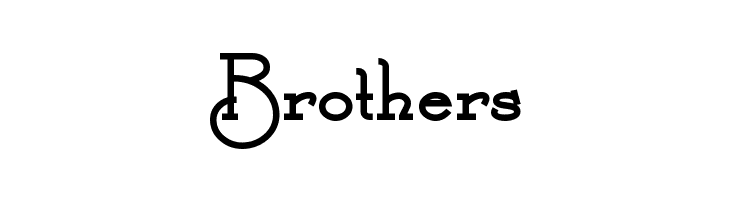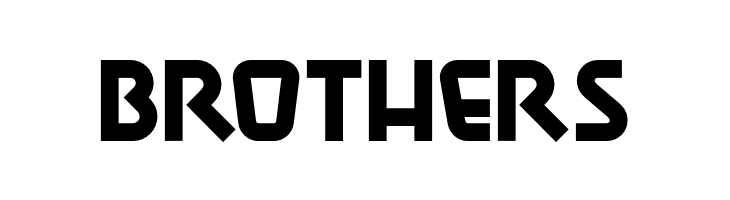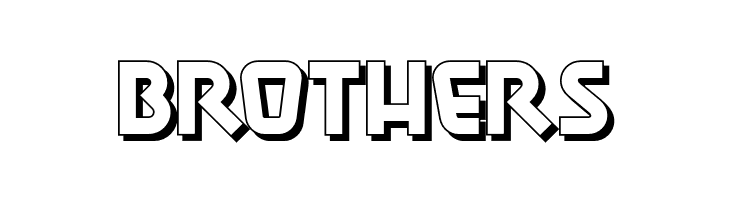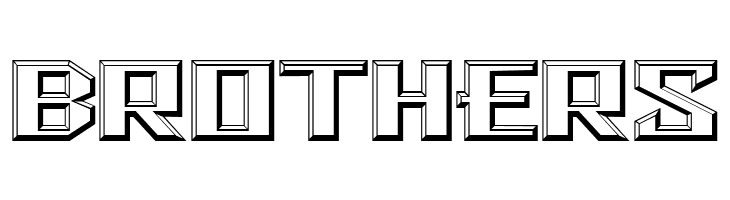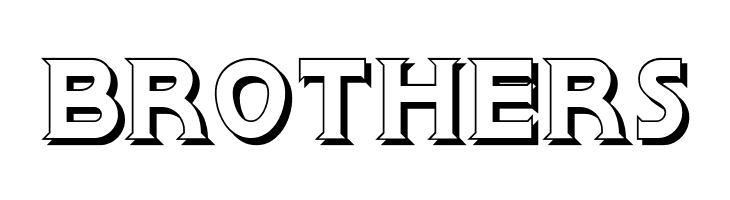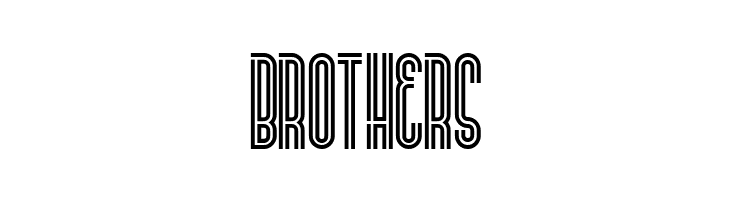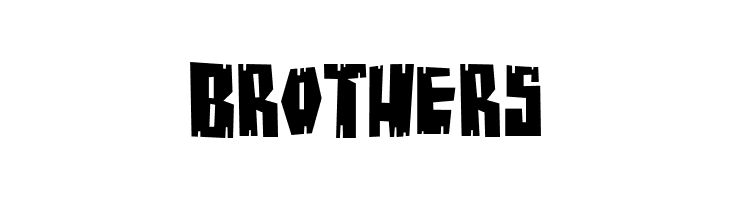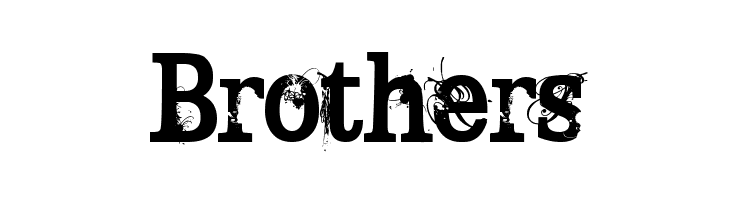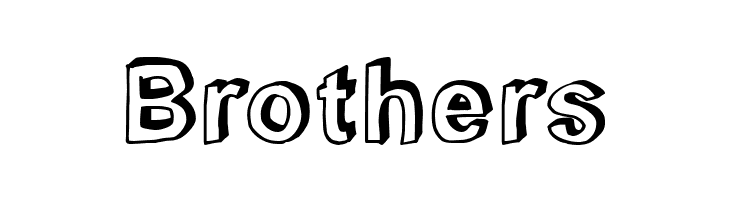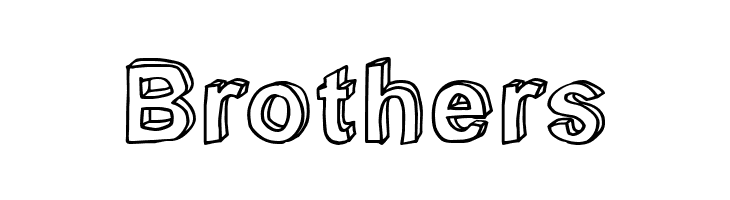
A bold, distressed font with a grunge and ghostly appearance.
A bold, blackletter-style font with sharp, angular lines and a medieval aesthetic.
A classic serif font with bold strokes and high contrast, ideal for formal use.
A classic italic typeface with elegant curves and delicate serifs.
A playful, hand-drawn font with a quirky and energetic style.
A bold, striking font with sharp angles and smooth curves.
A bold, shadowed decorative font with strong visual impact.
A bold, shadowed decorative font with a three-dimensional effect.
A playful, brush-stroke inspired font with a whimsical and artistic style.
A bold, decorative font with tall, narrow characters and high contrast.
A bold, geometric font with a 3D effect and industrial style.
A bold, geometric font with a playful, stencil-like style.
A bold, playful font with a 3D effect and geometric style.
A bold, playful font with a 3D shadow effect and geometric style.
A bold, geometric font with a playful, retro vibe.
A bold, angular font with a strong, industrial aesthetic.
A bold, rugged font with jagged, chipped edges for a distressed, industrial look.
A fluid and expressive handwritten cursive font.
A bold, distressed font with a grunge, textured style.
A bold, playful serif font with thick, rounded serifs and strong character presence.
An elegant, decorative font with intricate swirls and vintage charm.
A bold, decorative font with ornate serifs and intricate details.
An elegant, whimsical font with thin lines and decorative flourishes.
A bold, decorative font with vintage and western influences.